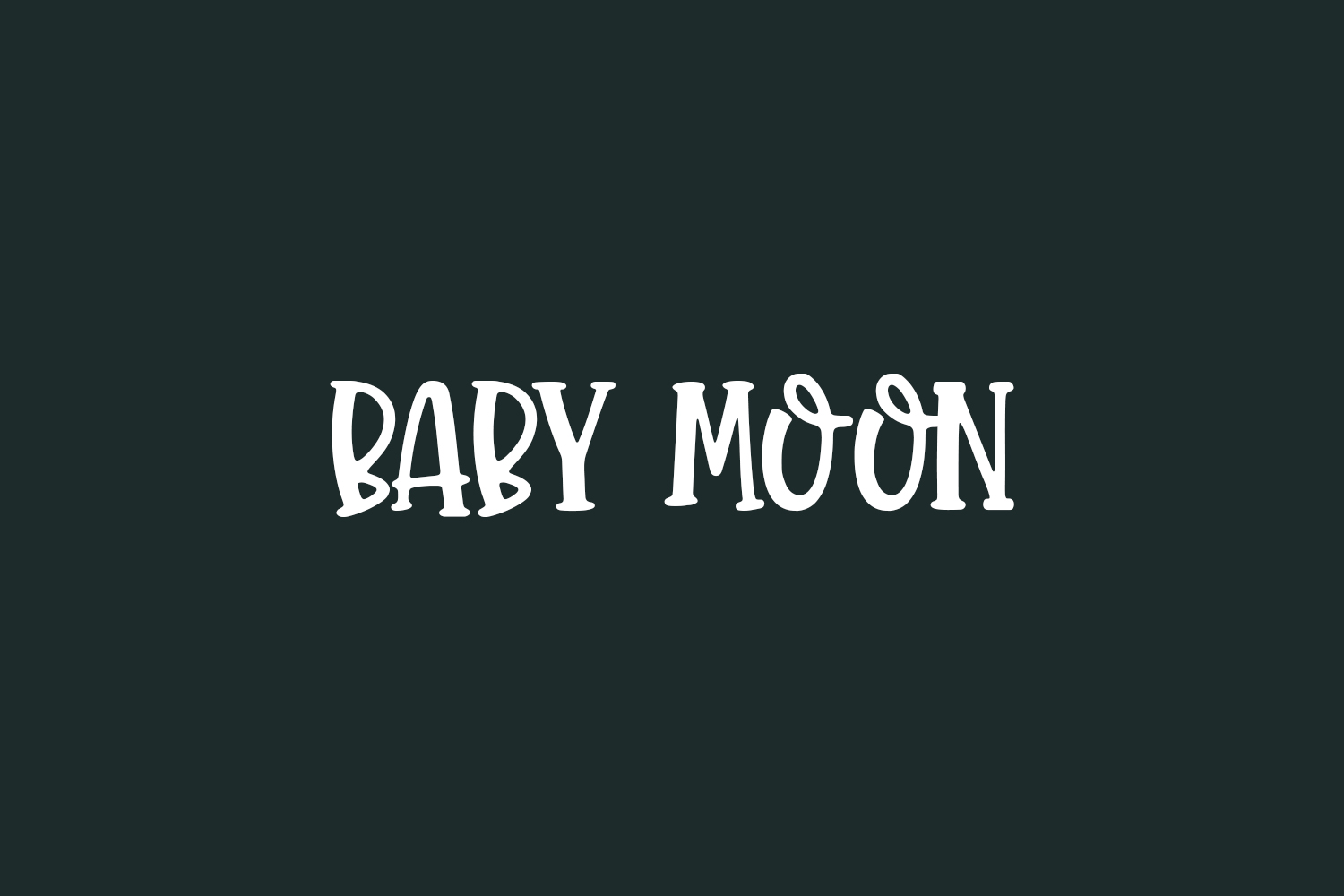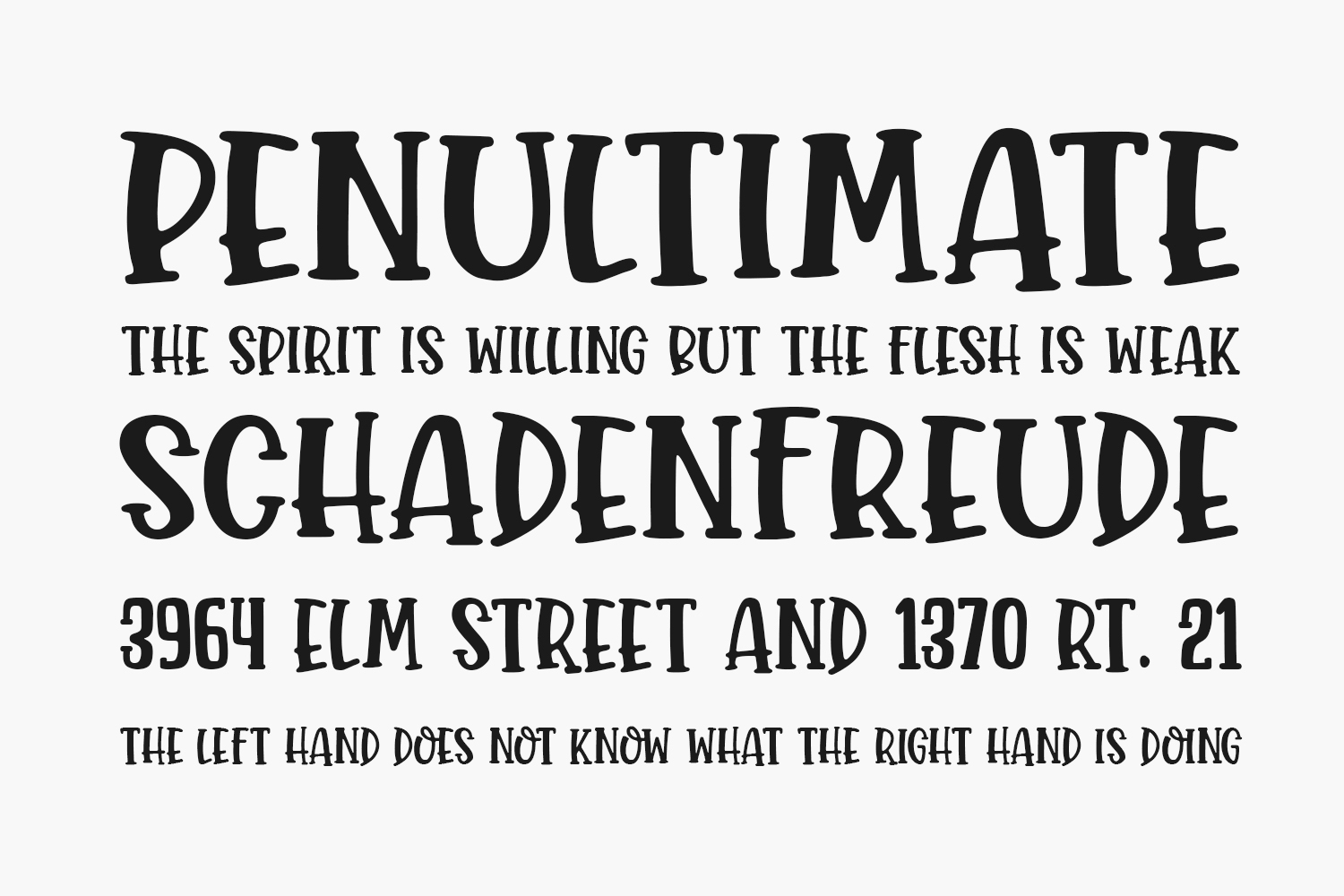
Baby Moon Free Font is a quirky and bold display font. It will add an incredibly joyful touch to your designs. Add this beautiful display font to each of your creative ideas and notice how it makes them stand out. Baby Moon ree Font was designed by Subectype & Orenari and is free for personal use only. Please purchase the full version for commercial use.